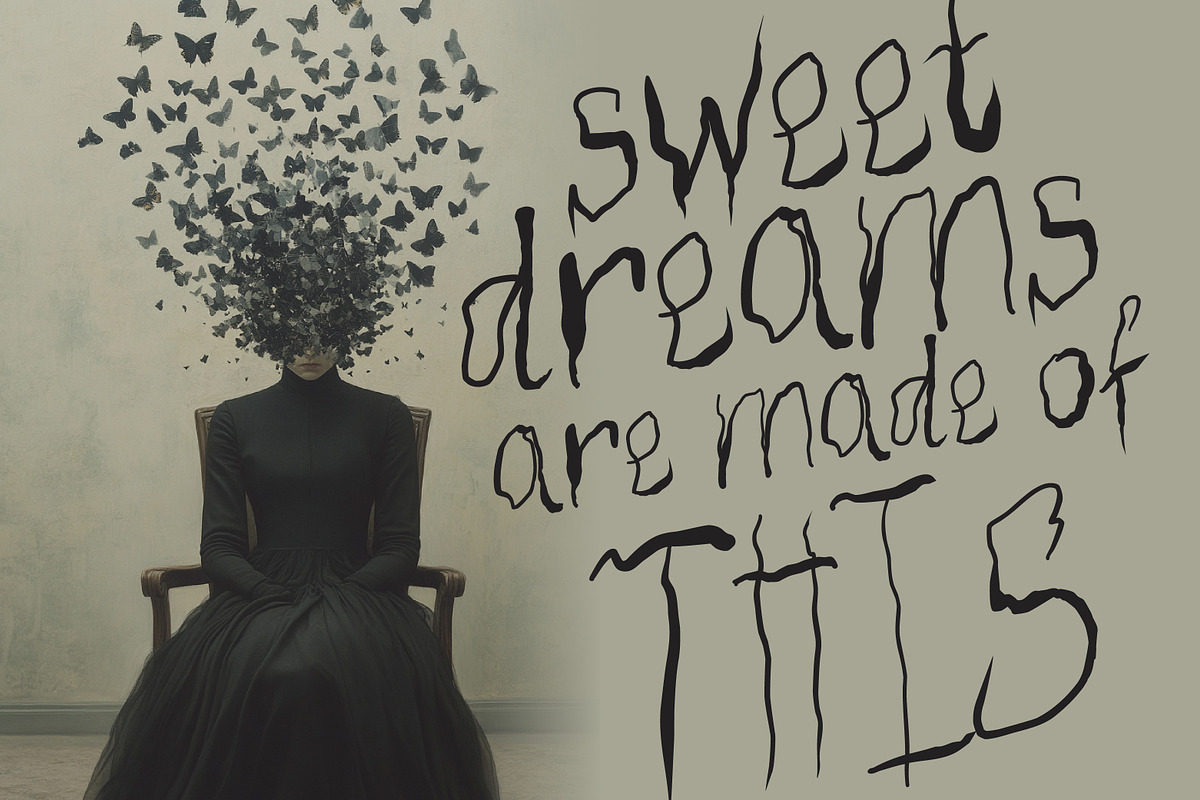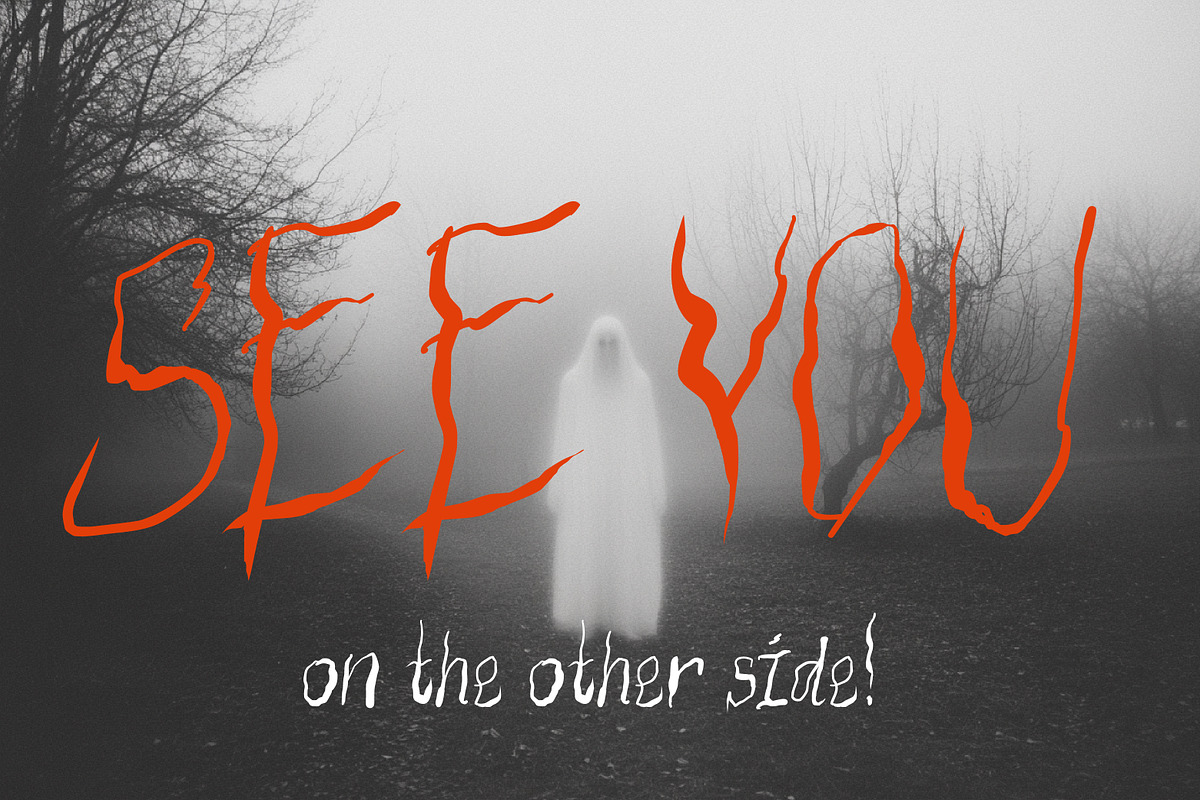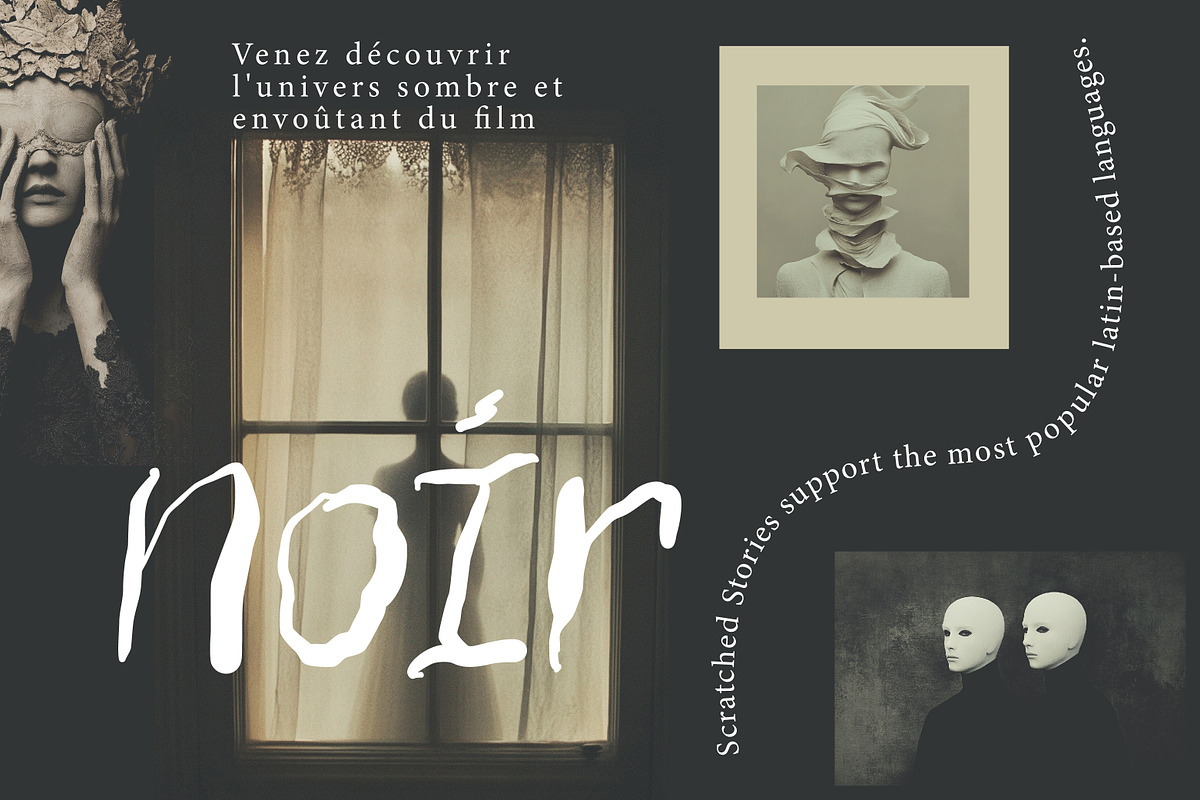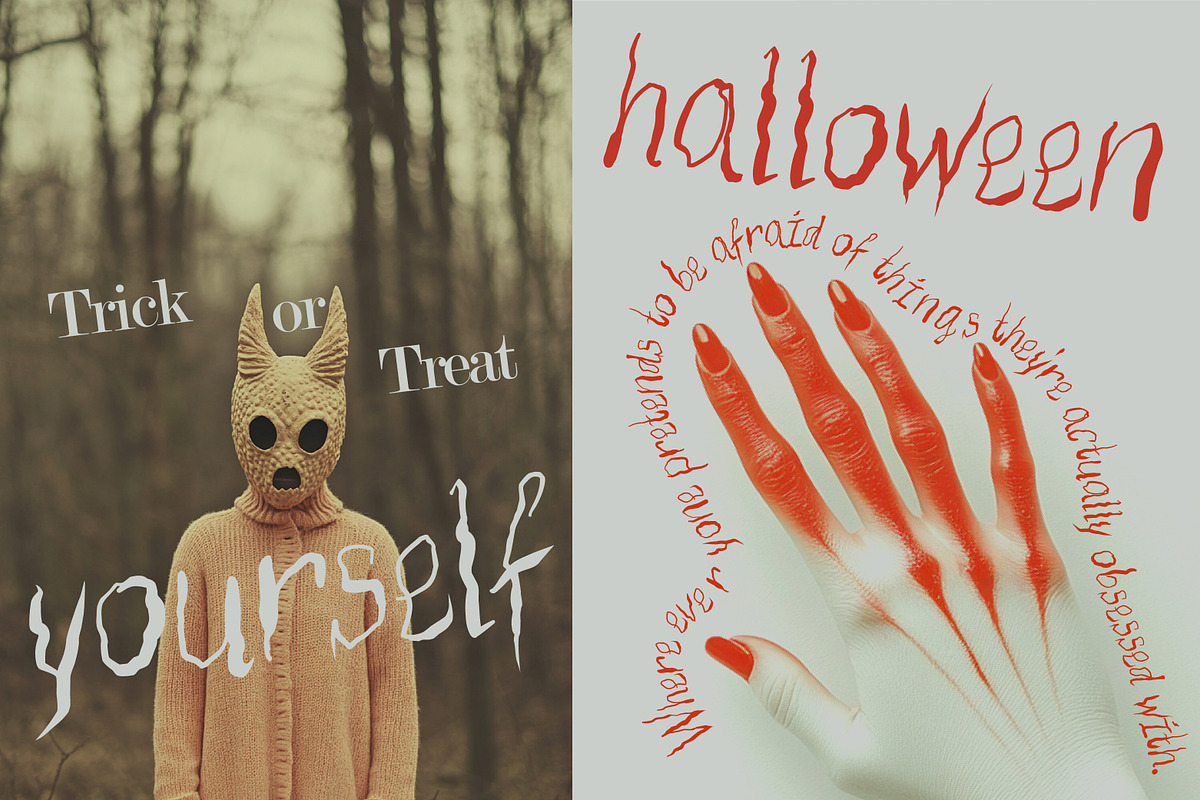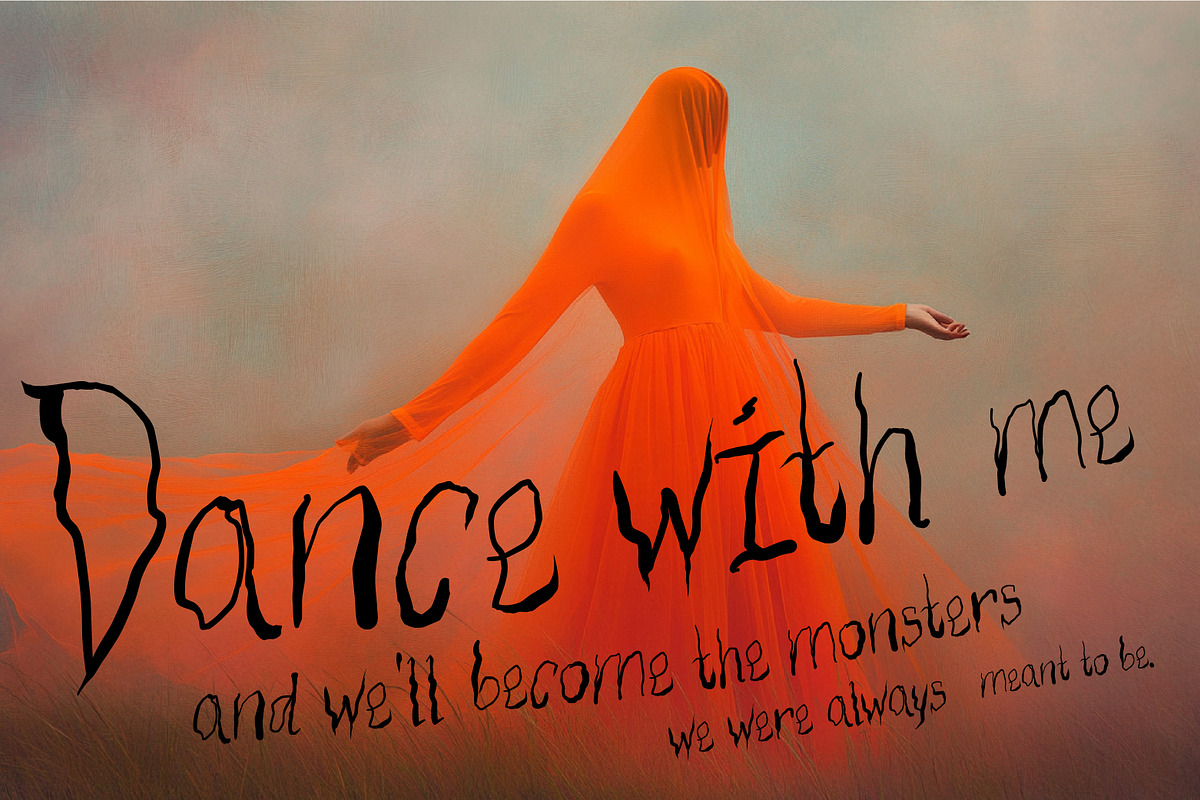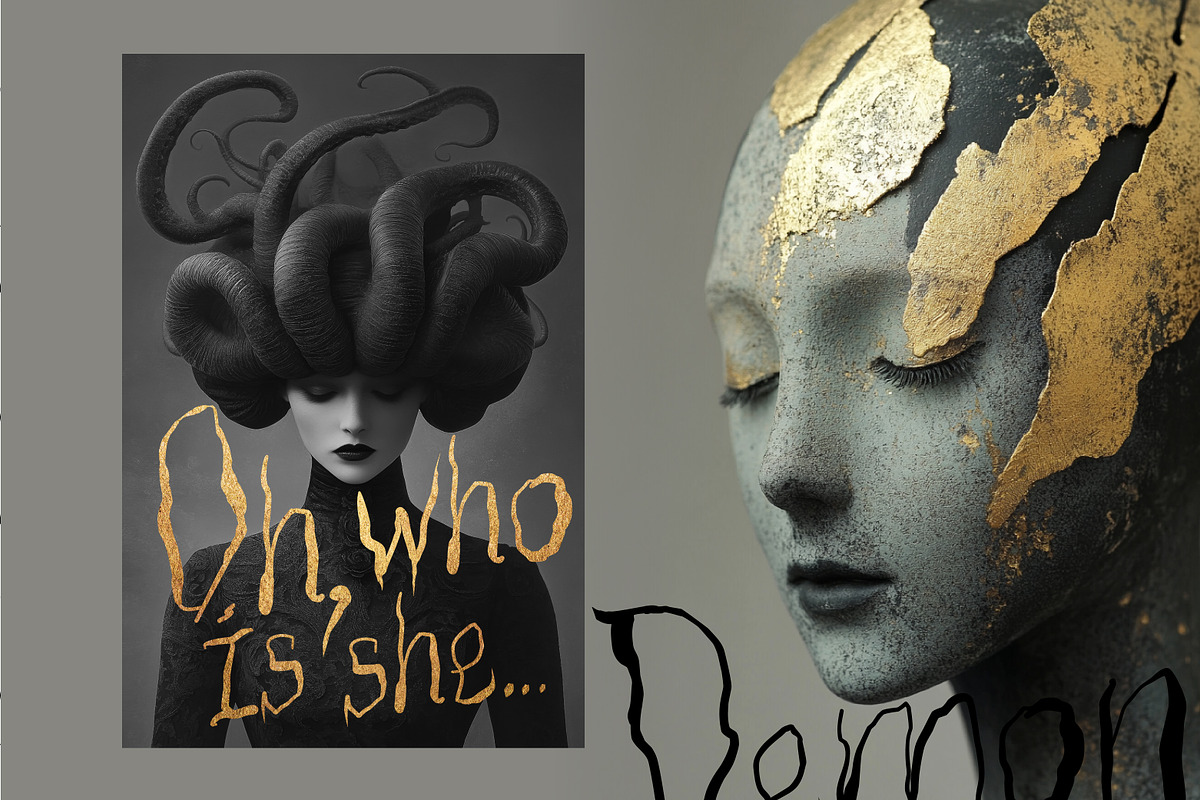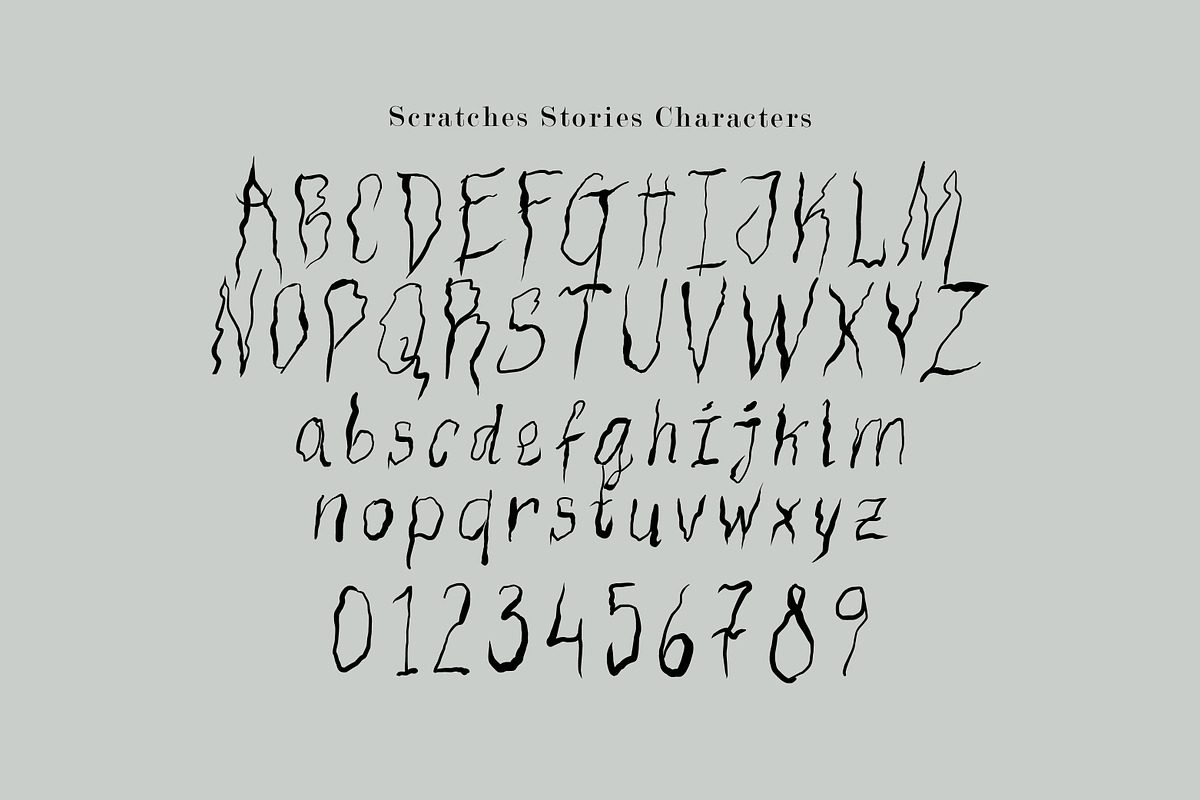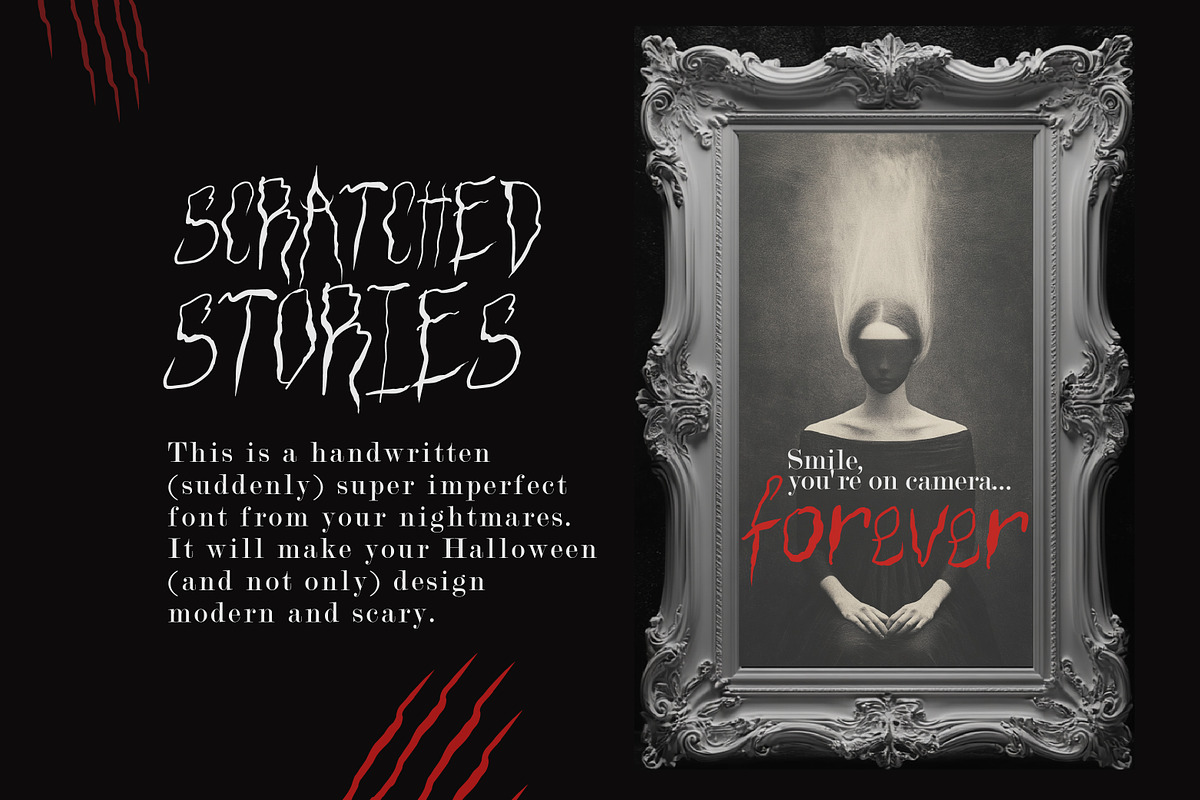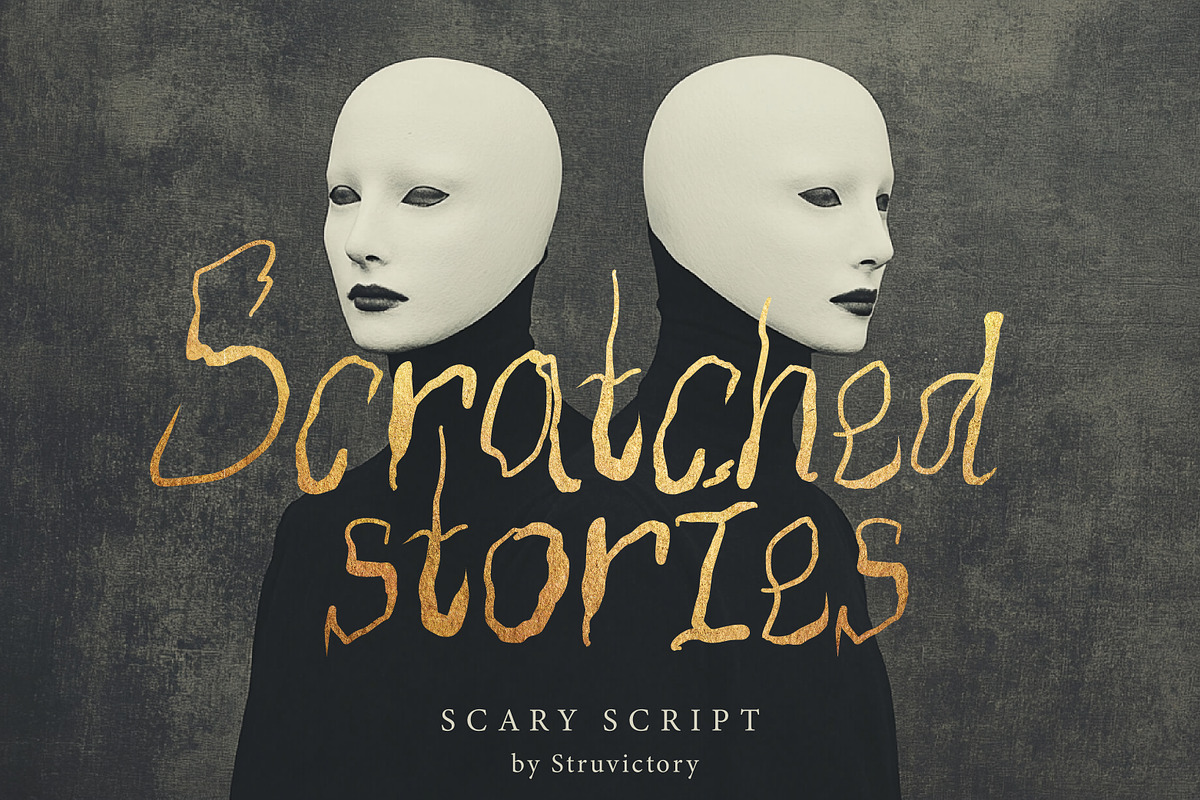
Scratched Stories - Halloween Script
Scratched Stories is a font that whispers tales of the macabre. Scratched Stories is a hand-drawn, ugly font that evokes a sense of mystery and dread. Perfect for Halloween projects, spooky invitations, and anything that needs a touch of the eerie.
The font supports the most popular latin-based languages, you can check the symbol you need by typing a couple of words in the font preview box.